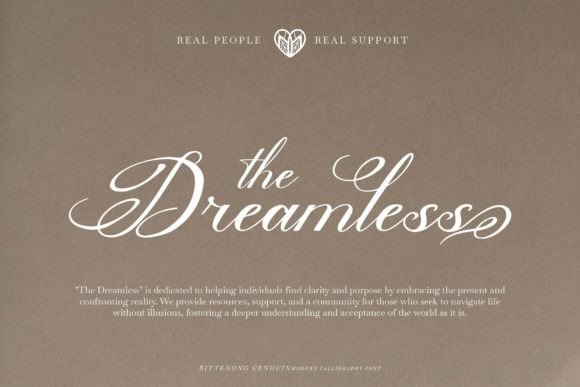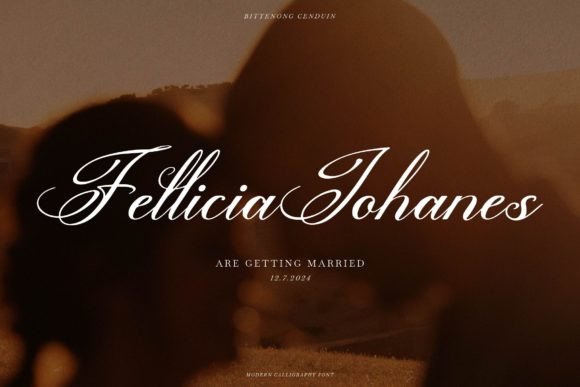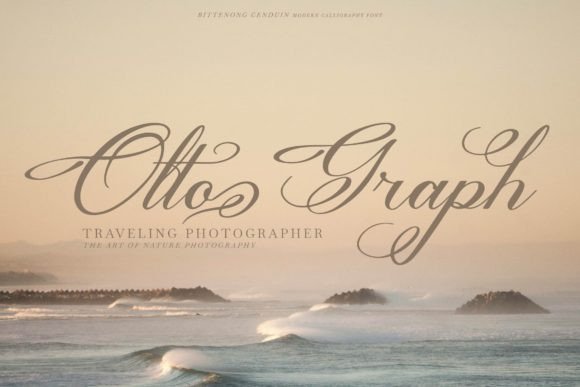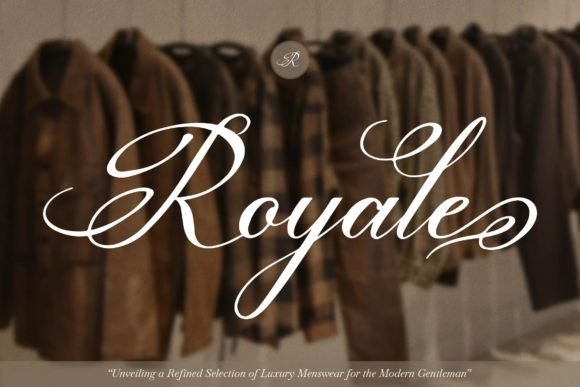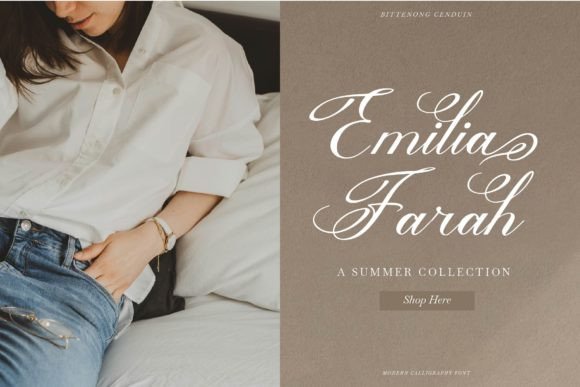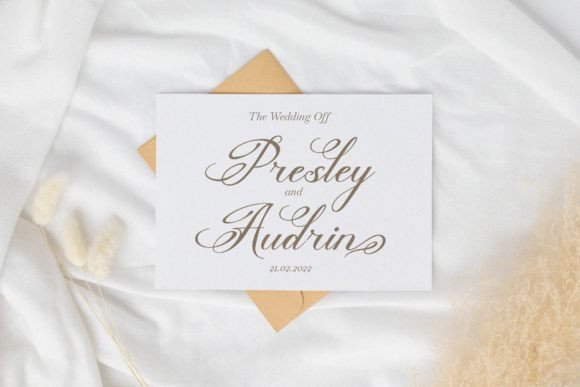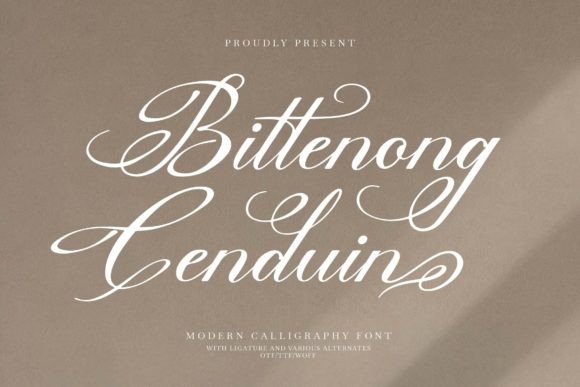
Introducing Bittenong Cenduin Font: Elevate Your Designs with Elegant Handwriting
Are you looking for a font that exudes sophistication and elegance? Look no further than Bittenong Cenduin Font. This stylish font is designed to mimic beautiful handwriting, making it perfect for a variety of design projects. Whether you’re creating invitations, logos, or any other visual material, Bittenong Cenduin is sure to add a touch of refinement and poise.
What Makes Bittenong Cenduin Stand Out?
Bittenong Cenduin Font is a modern typeface that boasts a smooth, flowing script. Its elegant handwriting style is perfect for designers and crafters who want to add a personal touch to their work. The font’s unique characteristics include:
- Elegant Handwriting Style: Bittenong Cenduin’s handwriting style is reminiscent of calligraphy, making it perfect for projects that require a touch of sophistication.
- Modern and Fresh: Despite its classic feel, Bittenong Cenduin is a modern font that will make your designs stand out from the crowd.
- Smooth Flow: The font’s smooth flow makes it easy to read and perfect for body text, headings, and titles.
Bittenong Cenduin Font is versatile and can be used for a wide range of design projects, including:
- Invitations: Whether it’s a wedding invitation, birthday party, or baby shower, Bittenong Cenduin is perfect for creating elegant and sophisticated invitations.
- Logos: Add a touch of elegance to your logo with Bittenong Cenduin. Its modern and fresh style makes it perfect for businesses that want to stand out.
- Stationery: Create beautiful stationery, including letterheads, business cards, and thank-you cards, with Bittenong Cenduin.
- Digital Designs: Use Bittenong Cenduin for digital designs, such as social media graphics, blog headers, and website titles.
Tips for Using Bittenong Cenduin Font
Here are some tips for using Bittenong Cenduin Font effectively in your designs:
- Pair with a Sans-Serif Font: Pair Bittenong Cenduin with a sans-serif font for a beautiful contrast that will make your designs stand out.
- Use for Headings and Titles: Use Bittenong Cenduin for headings and titles to add a touch of elegance to your designs.
- Experiment with Colors: Experiment with different colors to find the perfect match for your design. Bittenong Cenduin looks great in bold colors, as well as subtle pastels.
Bittenong Cenduin Font is a stylish and elegant font that’s perfect for designers and crafters who want to add a touch of sophistication to their projects. Its modern and fresh style, smooth flow, and elegant handwriting make it perfect for a variety of design projects. Whether you’re creating invitations, logos, or digital designs, Bittenong Cenduin is sure to elevate your designs to the next level.